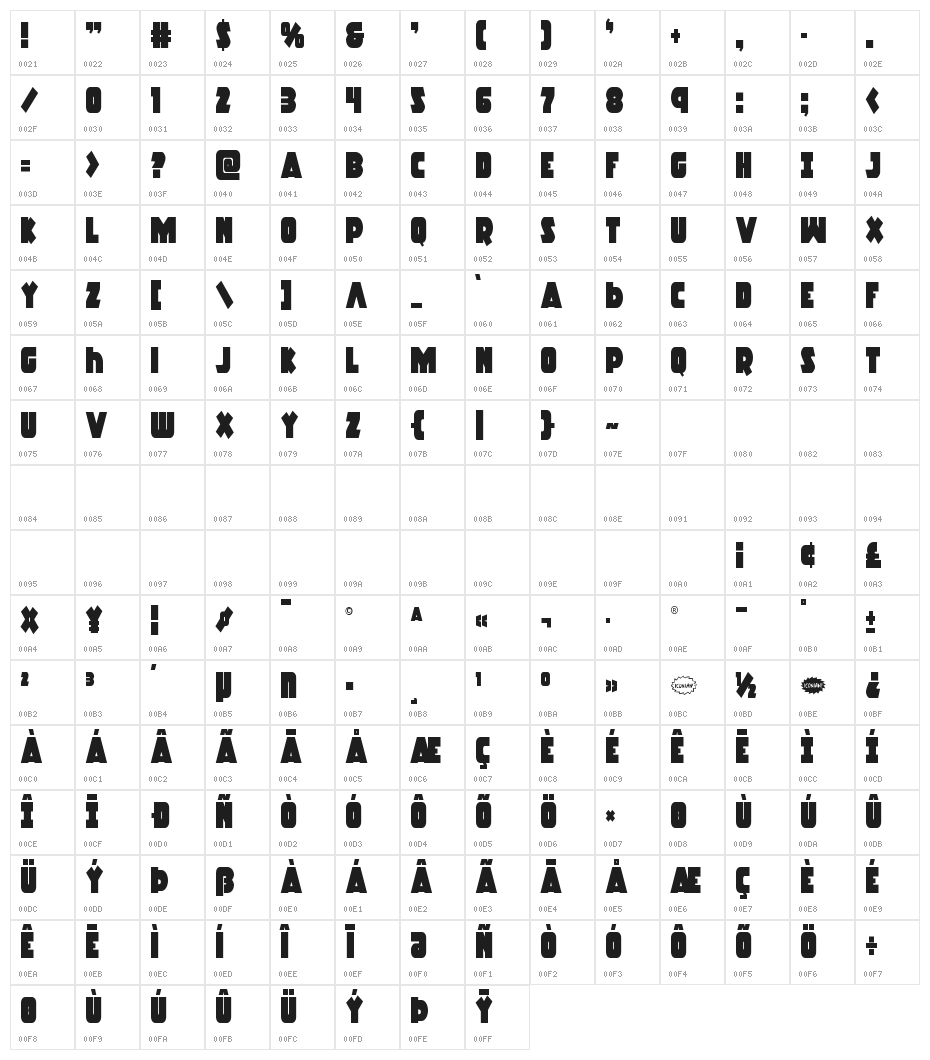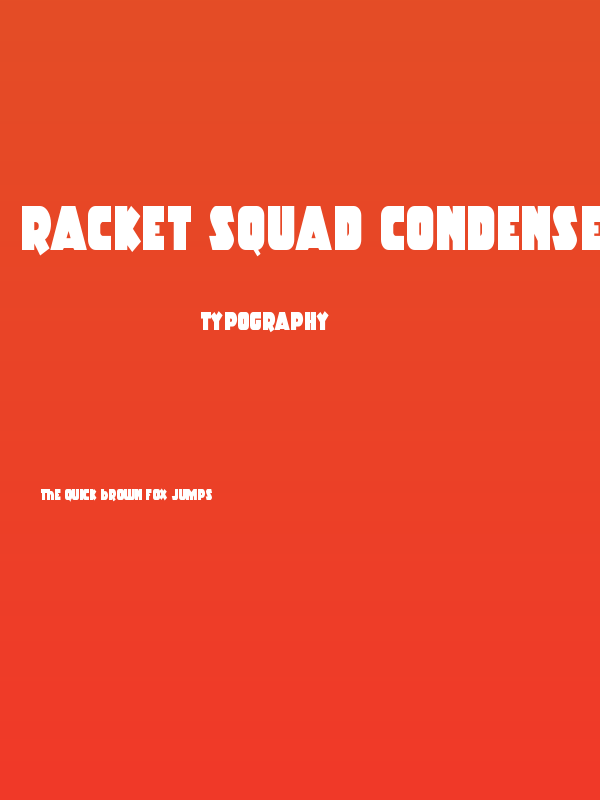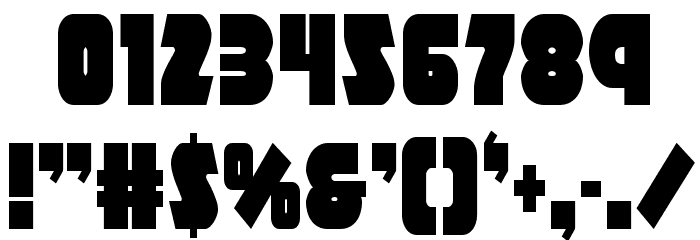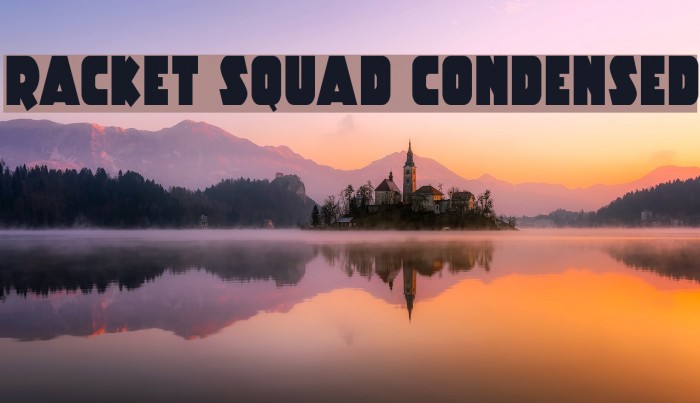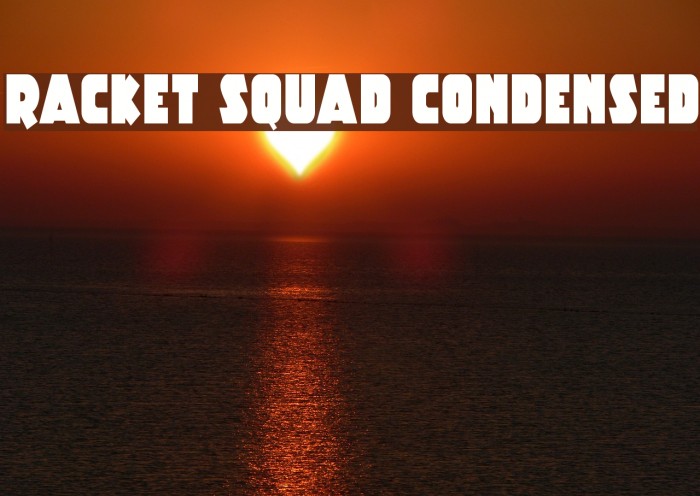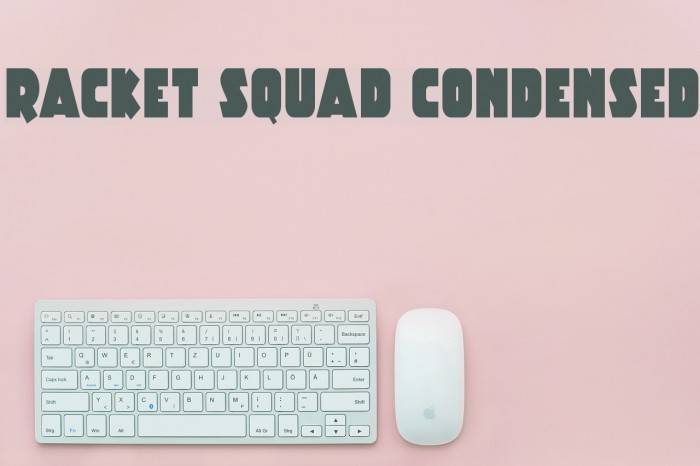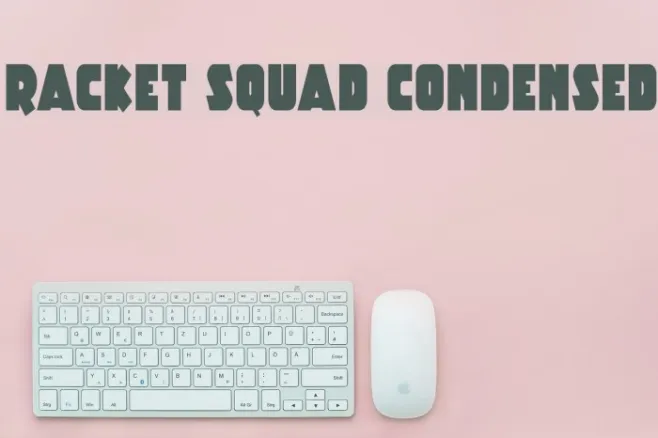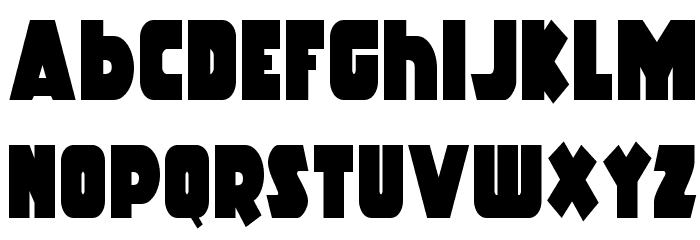
Racket Squad Condensed Font
Racket Squad Condensed Description
This font features a bold and striking design with a condensed width, making it ideal for impactful headlines and attention-grabbing displays. The characters are blocky and geometric, with sharp angles and a uniform stroke width that conveys strength and stability. The uppercase and lowercase letters maintain a consistent style, while the numerals and special characters complement the overall aesthetic. The font's condensed nature allows for efficient use of space, making it suitable for designs where space is limited but impact is essential.
| Proposed Projects | Ideal for posters, headlines, branding, and any project requiring a strong visual impact. |